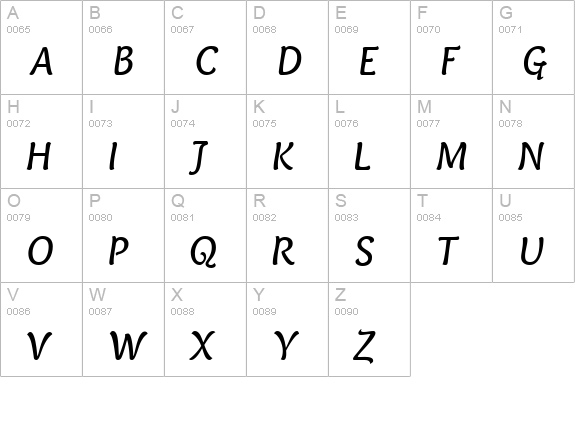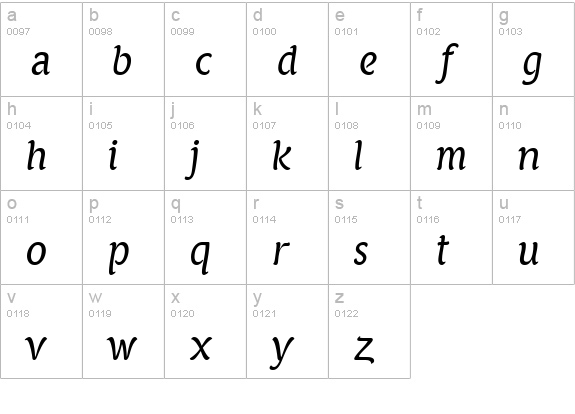
PFArmonia-Italic Font Details
PFArmonia-Italic is a distinctive, italic variant in the PFArmonia typeface family \xE2\x80\x94 well suited to design and typography projects.
PFArmonia-Italic font embodies elegance and sophistication with its graceful, slanted strokes and delicate curves. This italic typeface exudes charm and style, making it the perfect choice for projects that require a touch of class. Whether used for invitations, branding, or editorial designs, PFArmonia-Italic adds a sense of refinement and flair to any composition. What sets PFArmonia-Italic apart is its seamless blend of tradition and modernity, making it a versatile choice for a wide range of design applications. Its timeless appeal ensures that it will remain a classic choice for years to come. Best of all, PFArmonia-Italic is completely free to download at FontsMarket.com, allowing designers and enthusiasts alike to access this stunning font without any cost. Don't miss out on the opportunity to enhance your projects with the beauty and elegance of PFArmonia-Italic – download it today and elevate your designs to new heights.